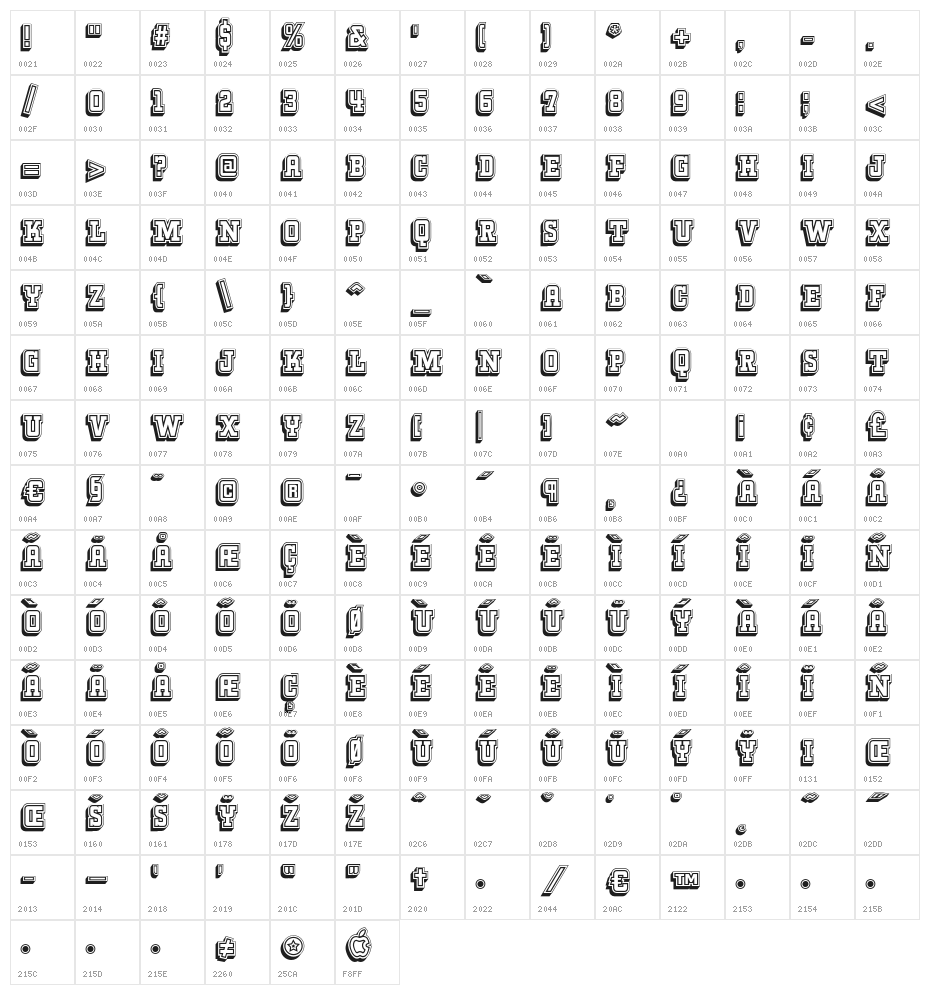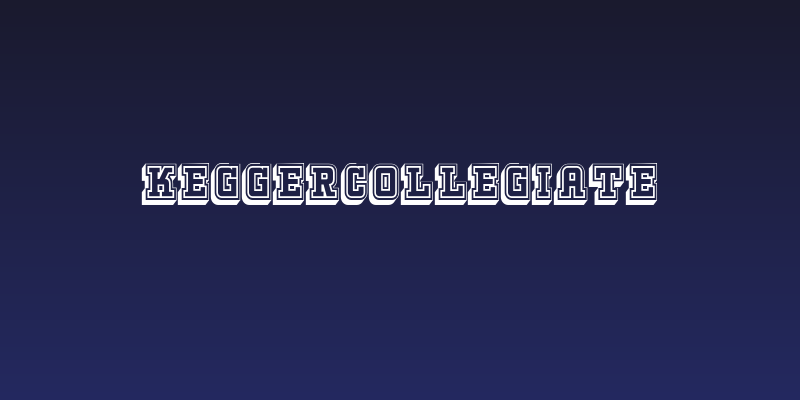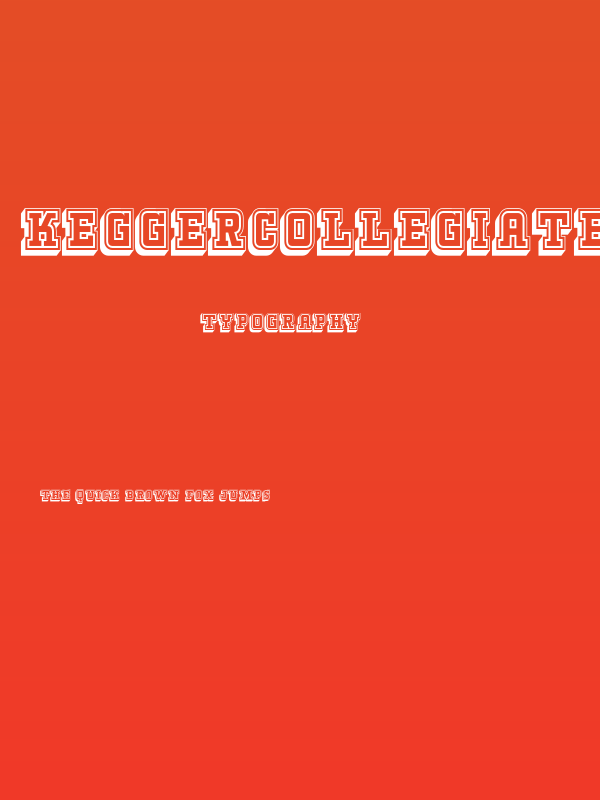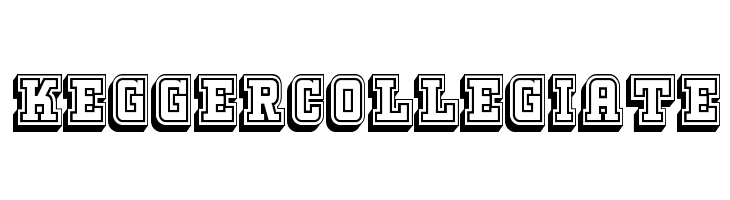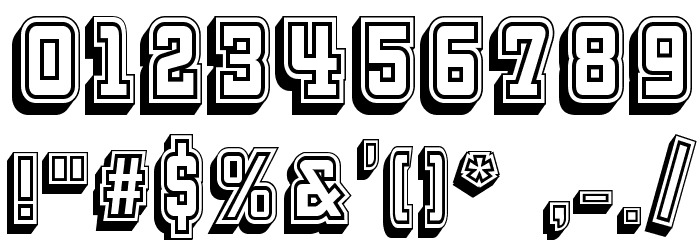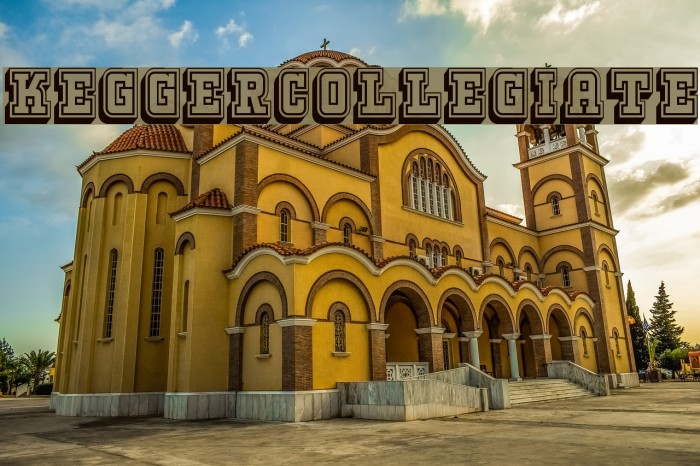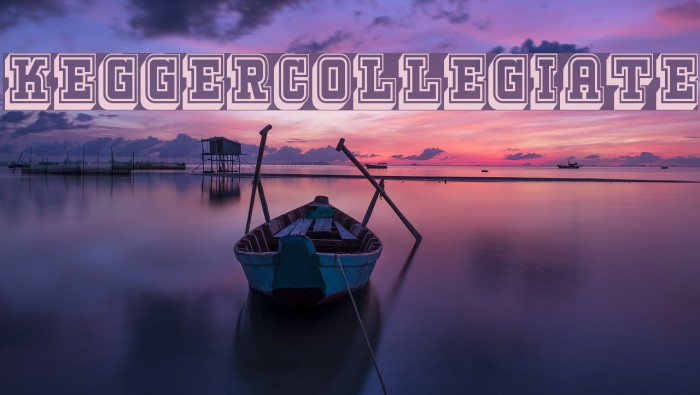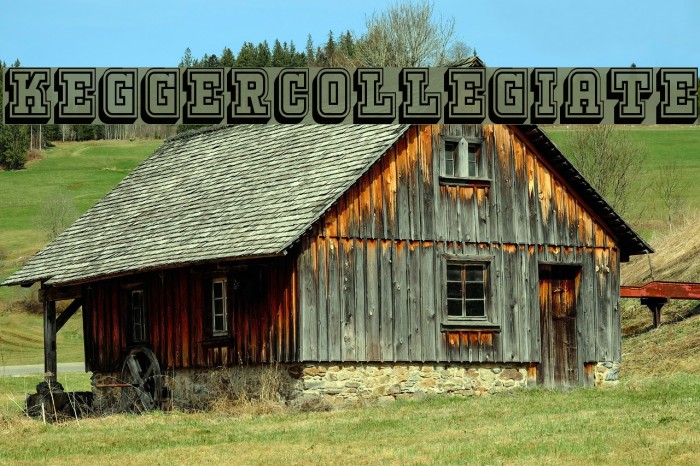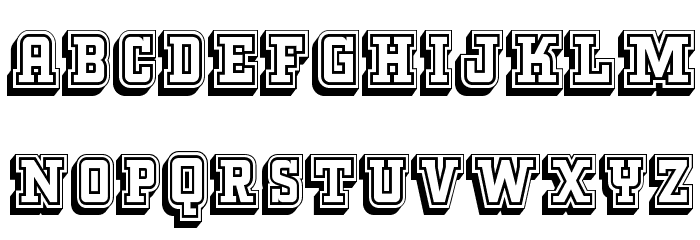
KeggerCollegiate Font
KeggerCollegiate Description
This font features a bold, collegiate style with a strong, three-dimensional effect. Each character is outlined with a thick border, giving it a robust and impactful appearance. The letters are uppercase, with a consistent height and width, creating a uniform look across the alphabet. The numbers and special characters follow the same design principles, ensuring cohesion throughout. The font's style is reminiscent of traditional varsity or sports team lettering, making it ideal for projects that require a sense of strength and tradition.
| Proposed Projects | Ideal for sports team branding, school spirit merchandise, event posters, and any project needing a bold, traditional look. |